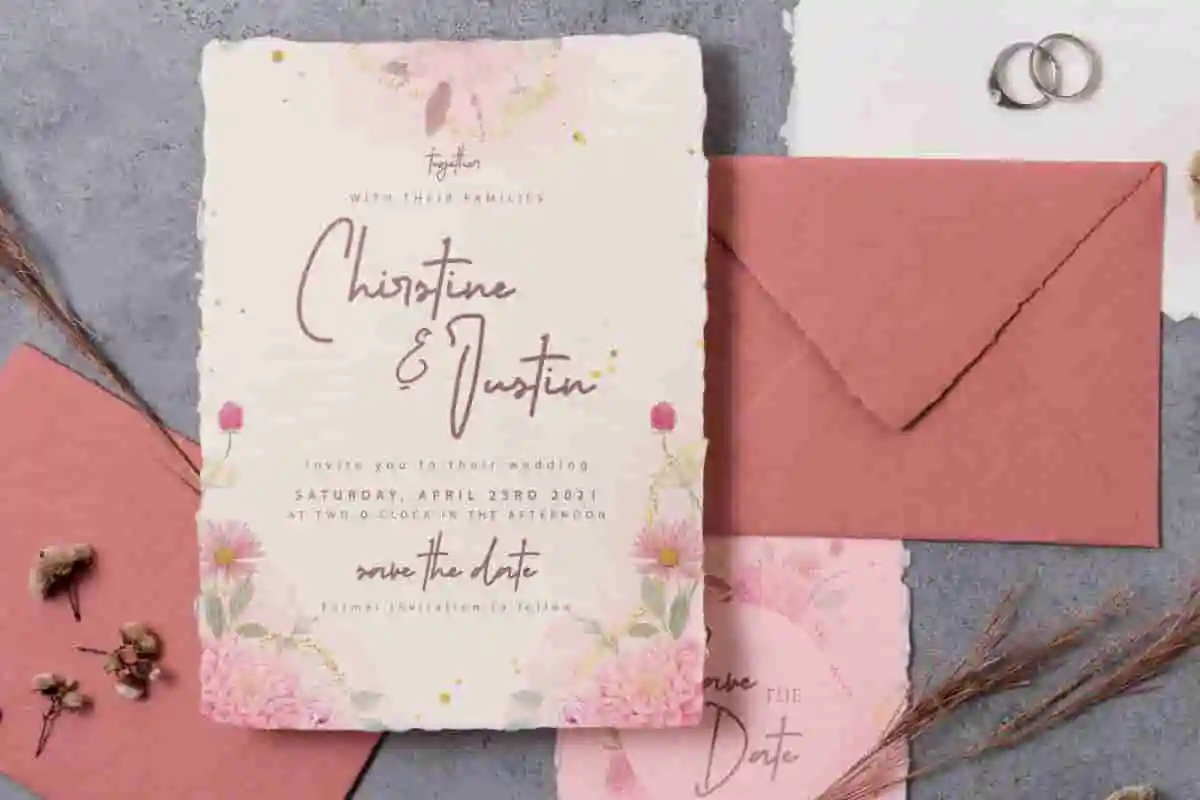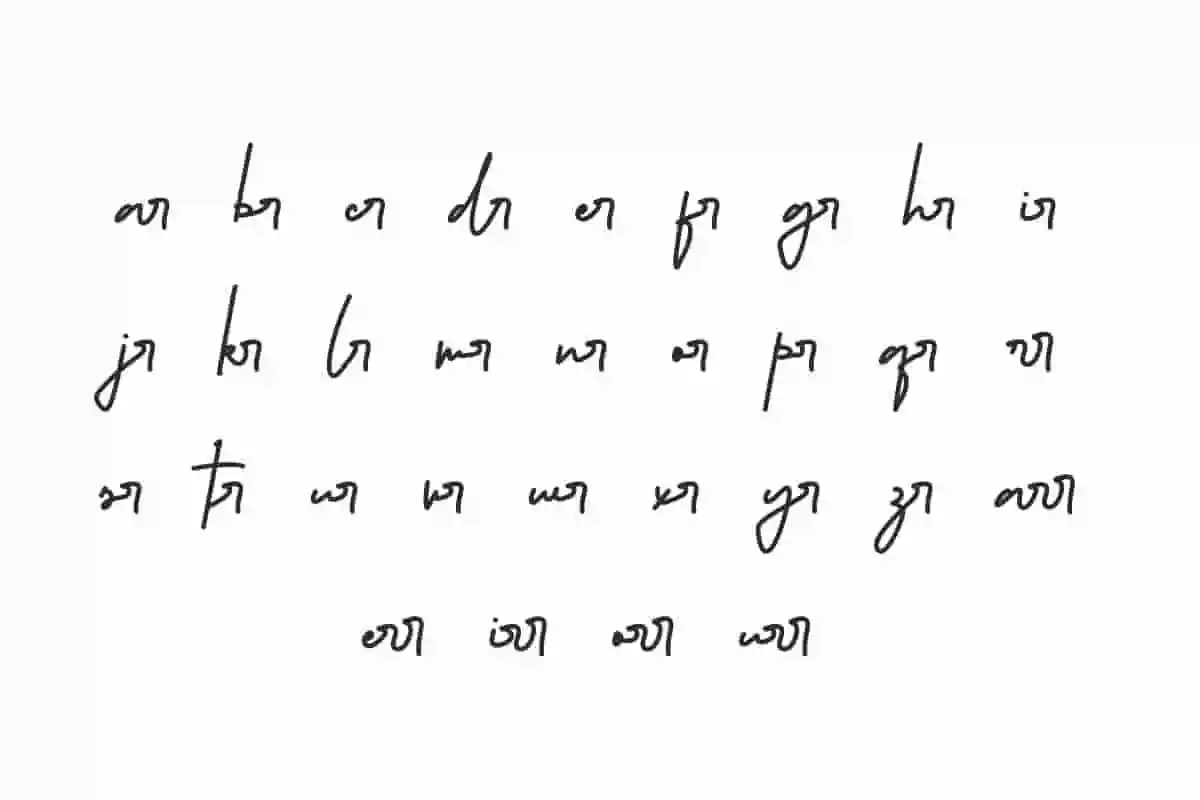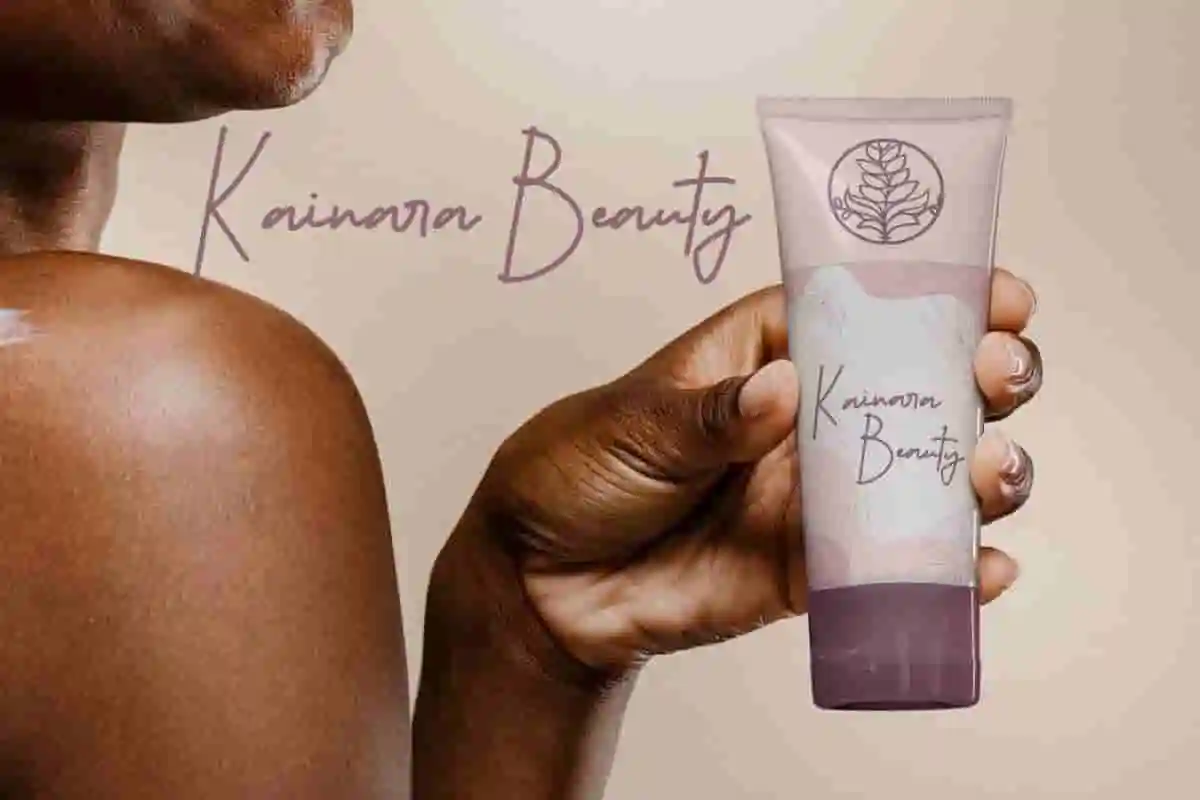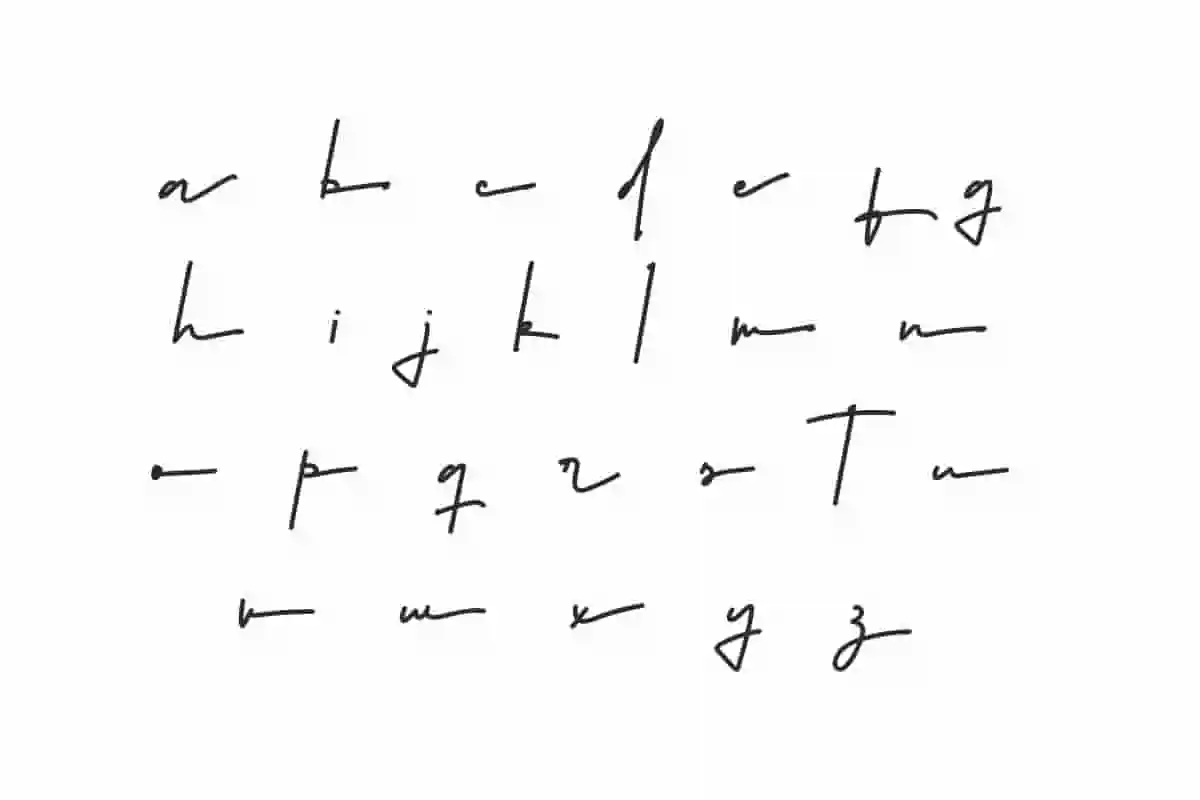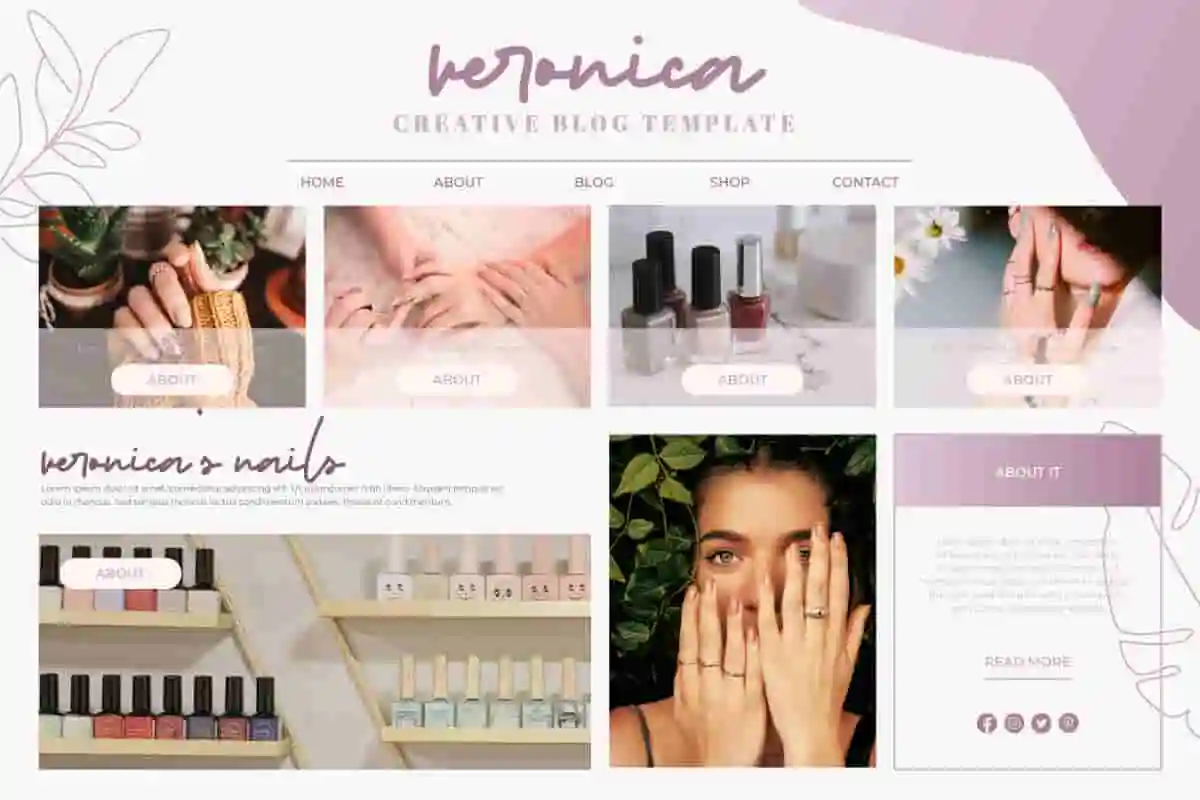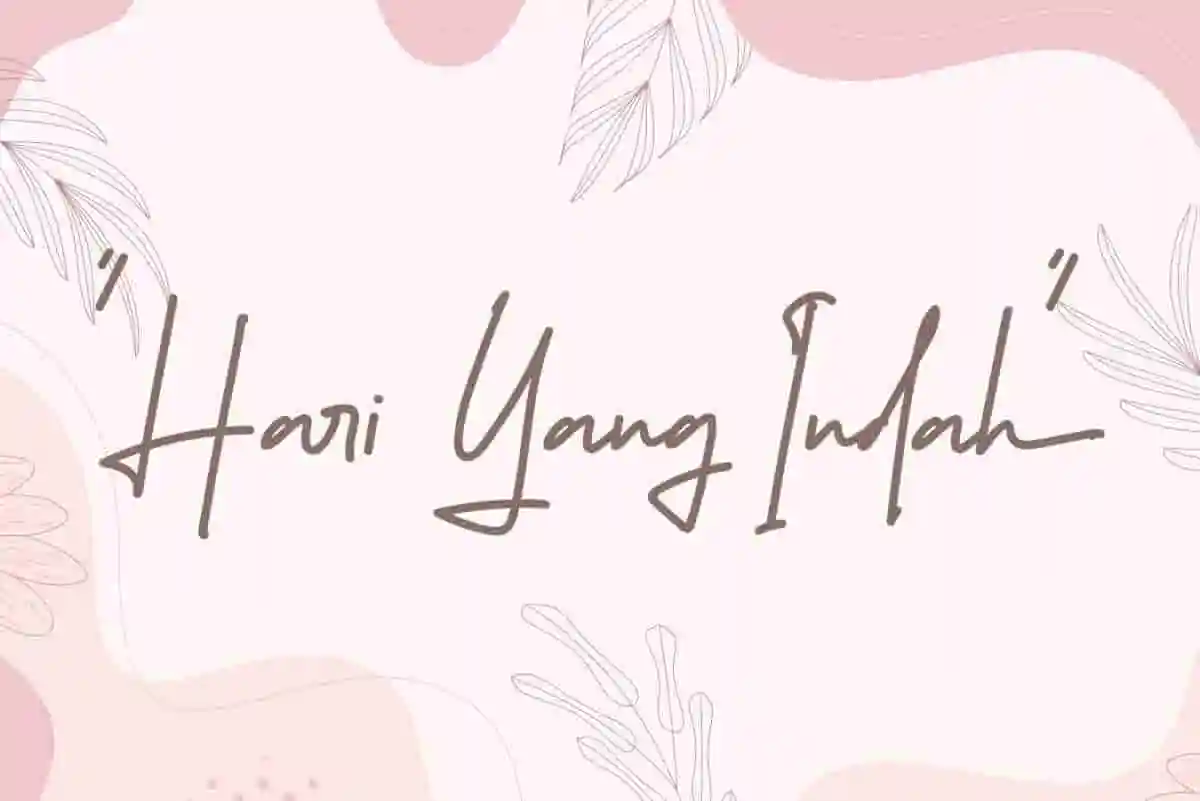
Hari Yang Indah Font
Hari Yang Indah Font is a light handwritten font that will accompany you on a beautiful day! It works well in fashion branding, social media templates or anything else.
Hari Yang Indah Font is a beautiful handwritten font with a light monoline lettering style. It has its own charm that will enhance your design, such as apps, brand logo, brochure, catalog, cover, creative template, greeting card, invitation, label, mockup, price tag, product packaging, screen print, signage, signature, stationery, sticker, title, watermark, website, and many more!
Hari Yang Indah Font comes with a full set of Uppercase and Lowercase Basic Characters, Number, Punctuation, Symbol, Ligature, and Alternate. It provides simple and smooth fonts for your business industry needs, such as accessories, architect, bridal boutique, fashion, florist, furniture, graphic design, handicrafts, photographer, printing, publishing, real estate, restaurant, skincare, spa salon, wedding, writer, etc.